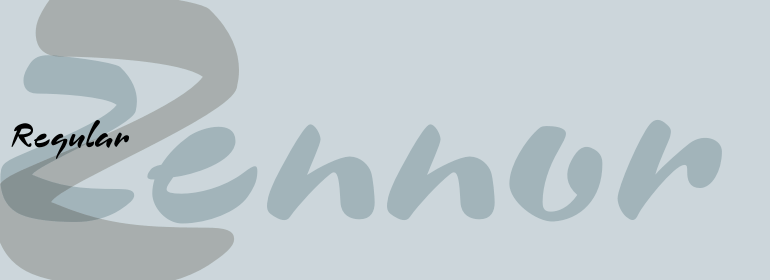
Zennor™
Zennor is the work of British designer Phill Grimshaw, a bold italic brush script with slick, dashing letterforms with an almost globular quality. Its uppercase can be used alone or as initials with a strong, authoritative lowercase. Zennor is an ideal choice for work requiring a casual yet confident look.